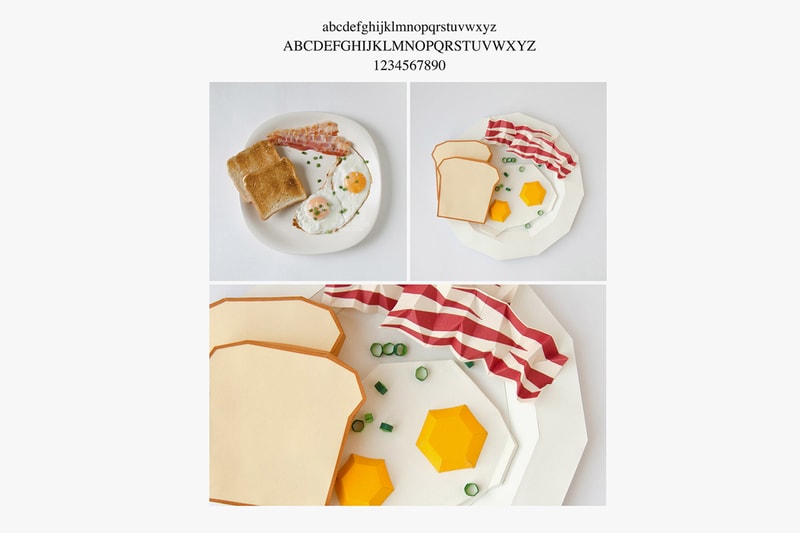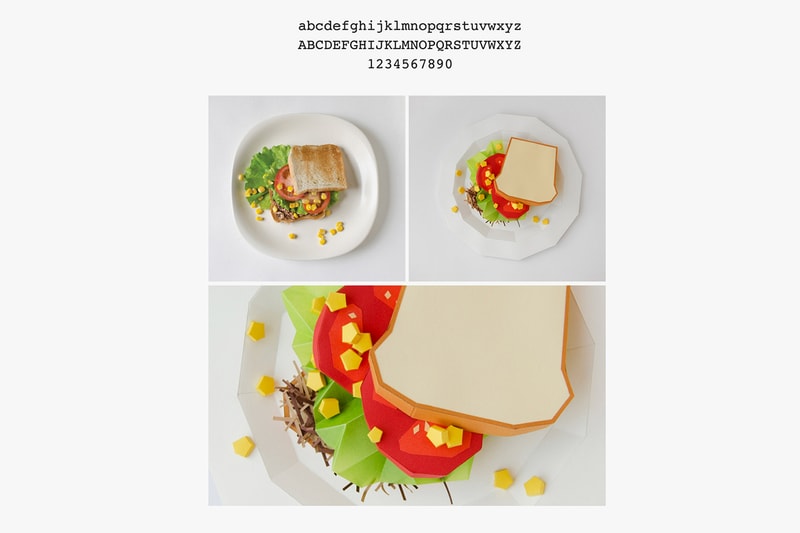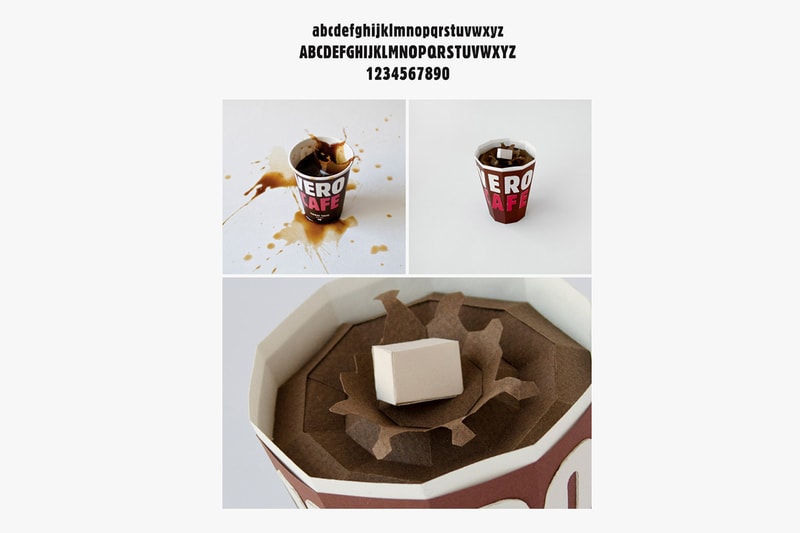
Your Favorite Typefaces as Food Dishes
Committed design school students may have found themselves wondering about their favorite fonts as animate objects, indeed, if they had personalities, characters or perhaps even distinct tastes. Lithuanian design studio PRIMPRIM carried out such musings, symbolizing typefaces such as Comic Sans, Times and Courier New as their varying edible counterparts (marshmallows, eggs and bacon, and a tuna sandwich, respectively). The imagined foods were then recreated using paper, making for an interesting, methodical design project that differs from PRIMPRIM’s other work in graphics. Enjoy a look at the pieces above.